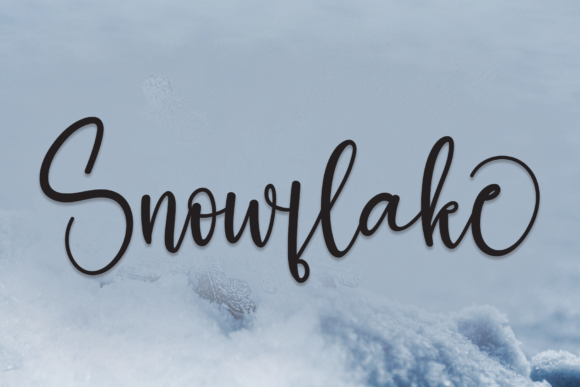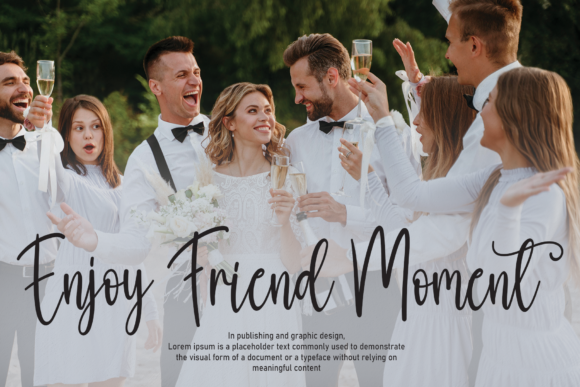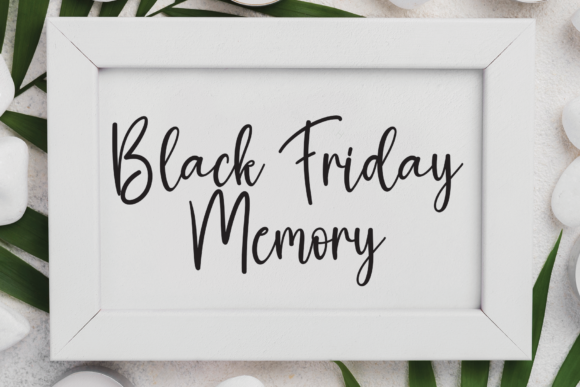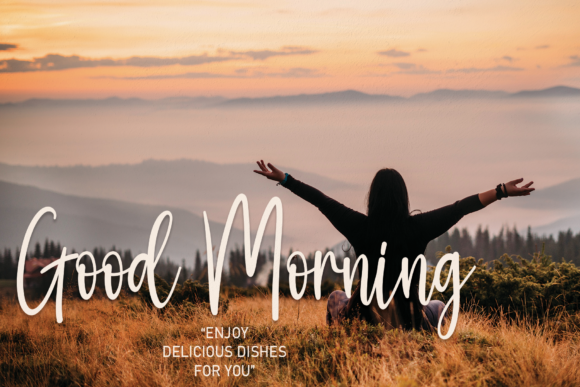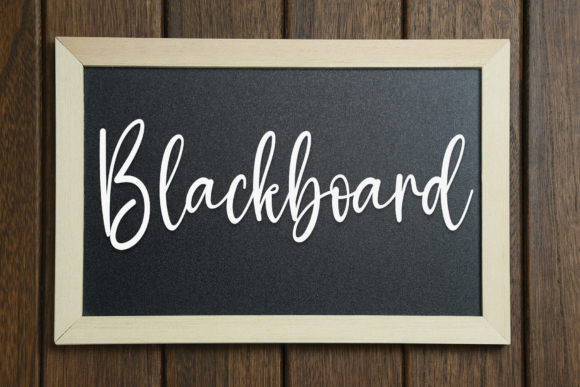
Snowflake Font
About Snowflake Font
Snowflake handwritten font is ideal for design, logo design, blog graphics, style quotes, wedding stationery, art prints, additional design, packaging, social media, magazines, fashion, creative branding, editorial design, and web designing.